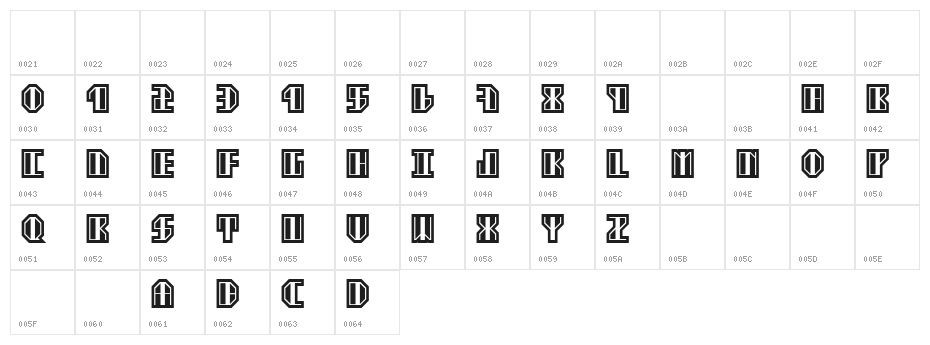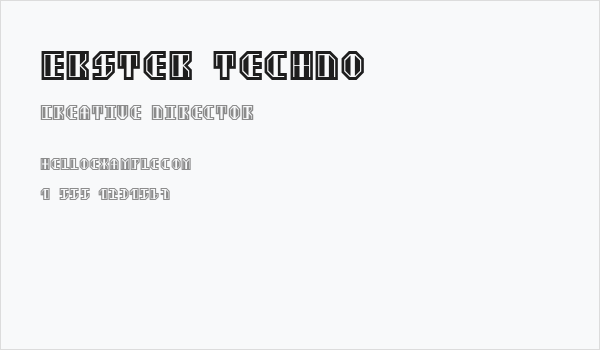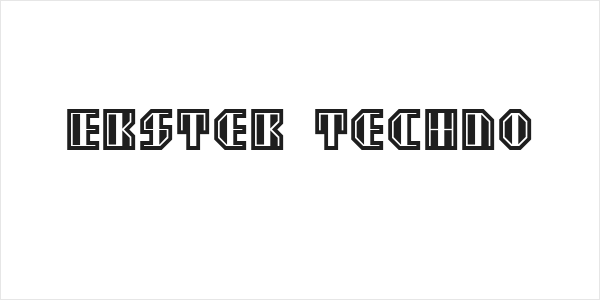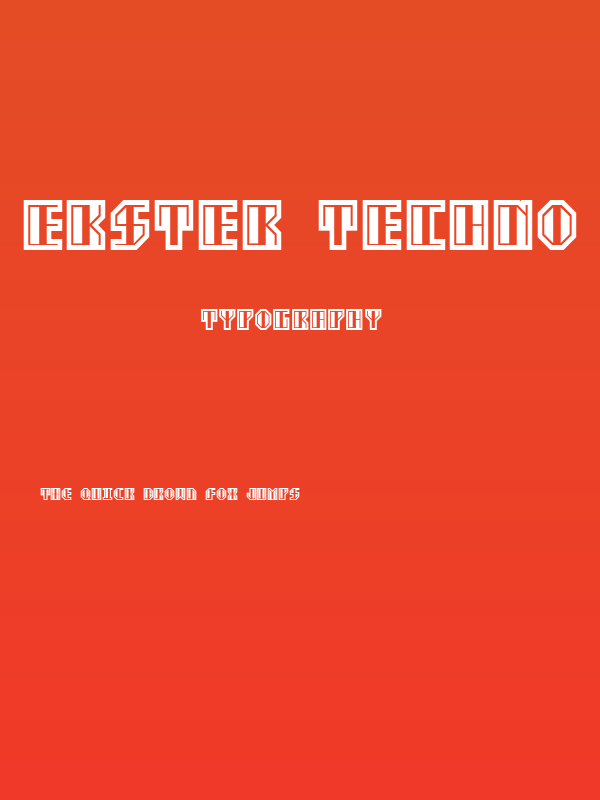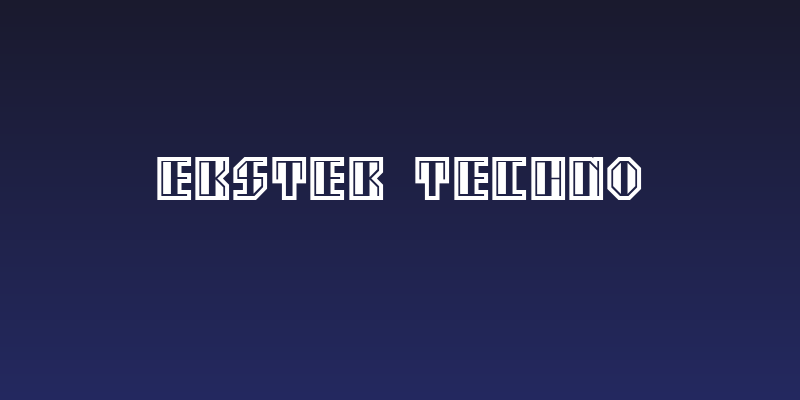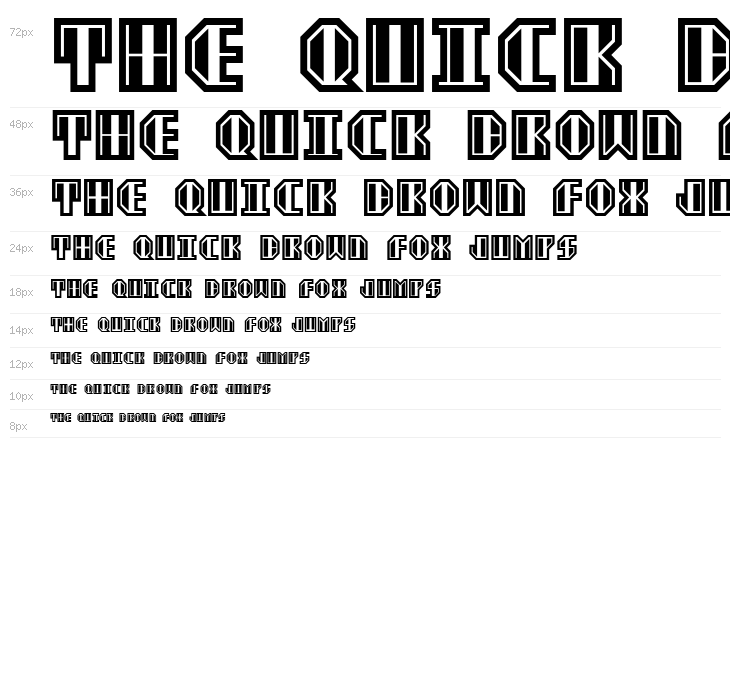
Ekster Techno Font
Ekster Techno Description
This font features a bold, geometric design with a futuristic and techno-inspired aesthetic. The characters are constructed with sharp angles and a blocky structure, giving them a distinct, modern look. The use of negative space within the letters adds a unique dimension, enhancing the overall visual impact. The uppercase and lowercase letters maintain a consistent style, while the numerals and special characters follow the same design principles, ensuring a cohesive appearance across all elements. This font is ideal for projects that require a strong, eye-catching typeface with a contemporary edge.
| Proposed Projects | Ideal for technology branding, sci-fi posters, video game titles, and digital media projects. |